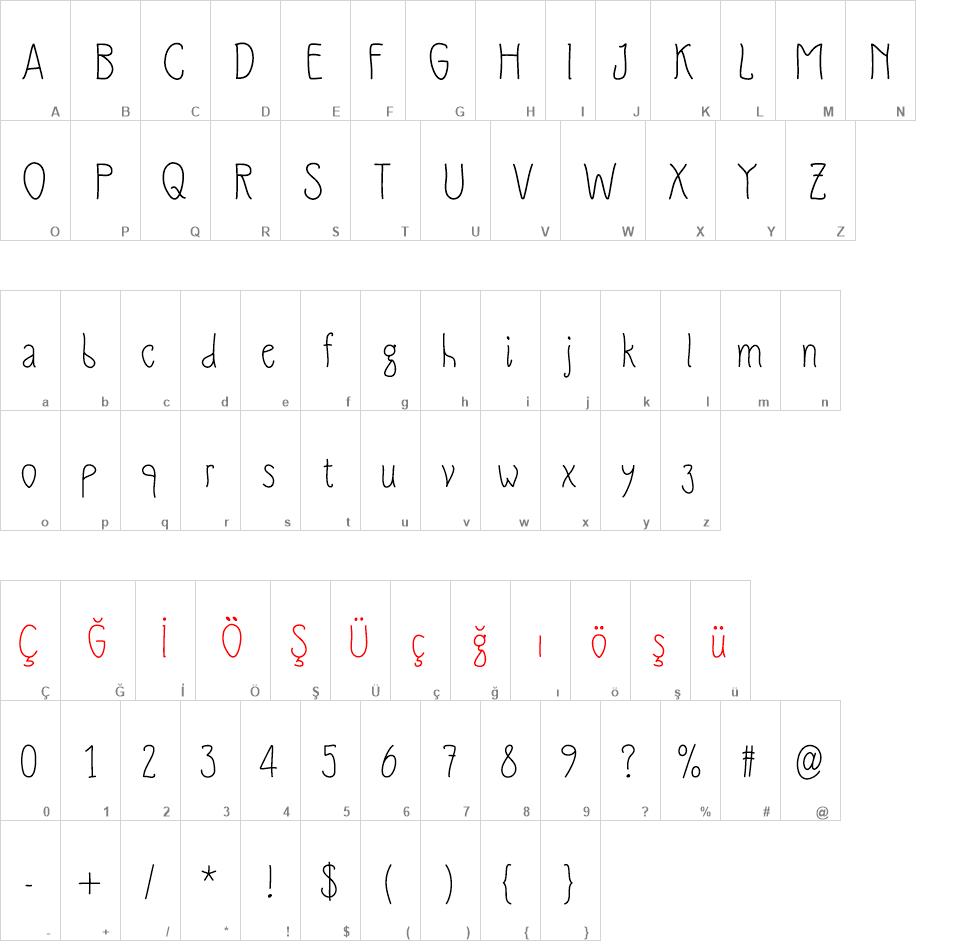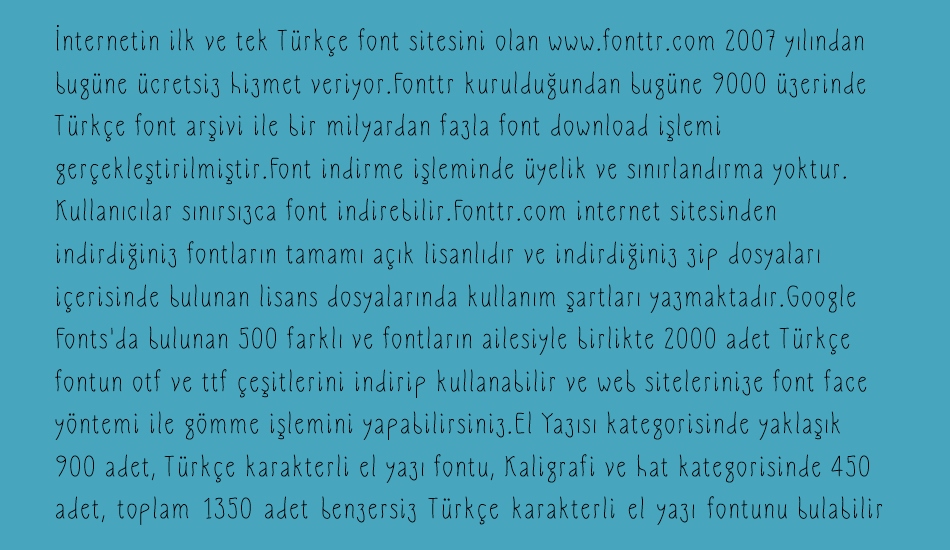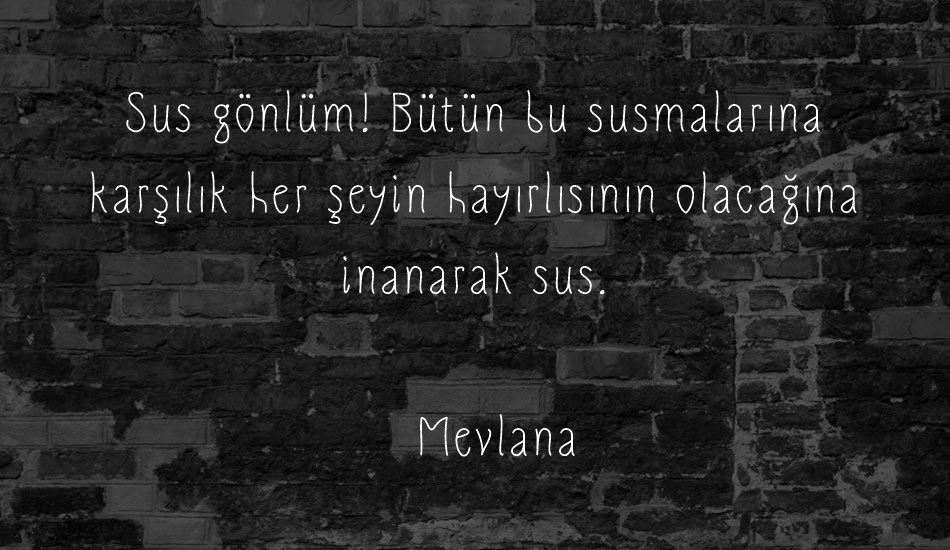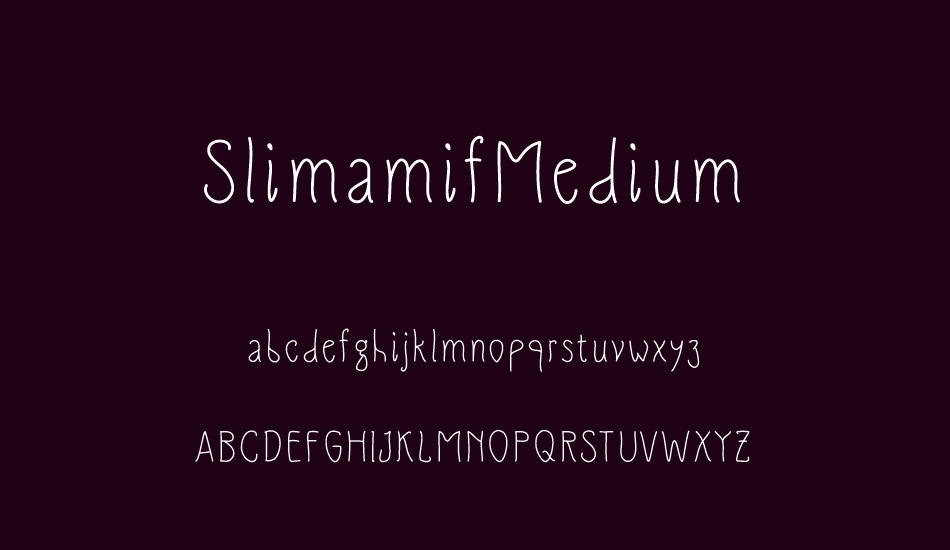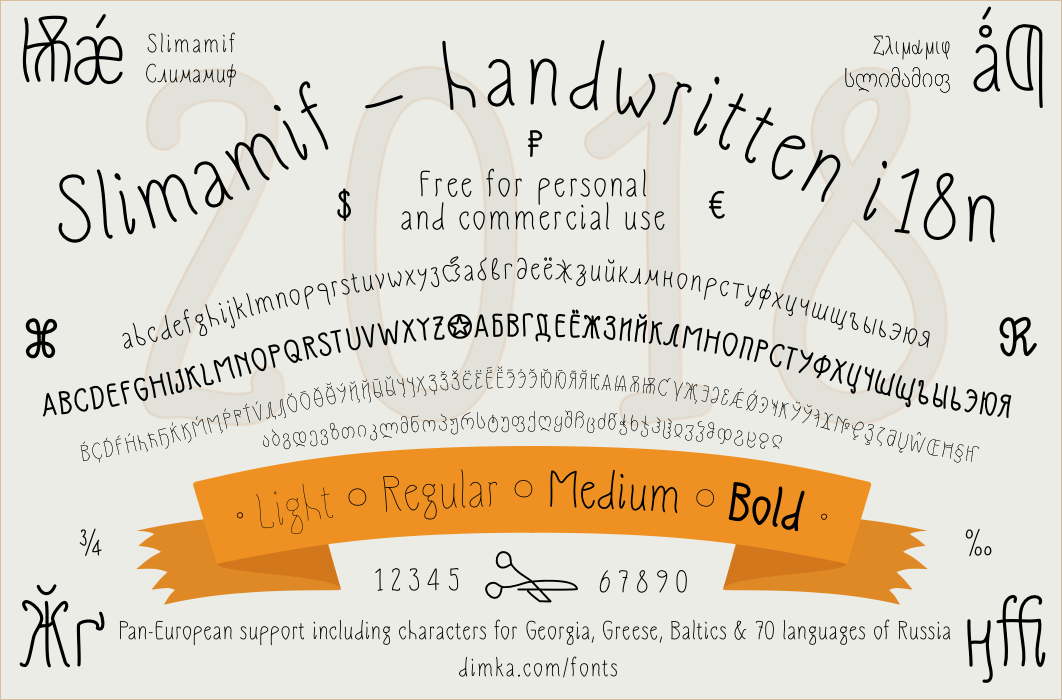
Slimamif font
Slimamif
Slimamif has extended Latin, Greek and Cyrillic character sets and can be used for Russian, Ukrainian, Belorussian, Latvian and virtually all other European languages and more that 70 ethnic languages of Russian Federation. It has new Ruble sign and other special characters that are used on the web.
Stylistically it's thin, light font, somewhat between handwritten and Art Nouveau.
Slimamif was designed by Dmitri Zdorov in 2016 and updated often.